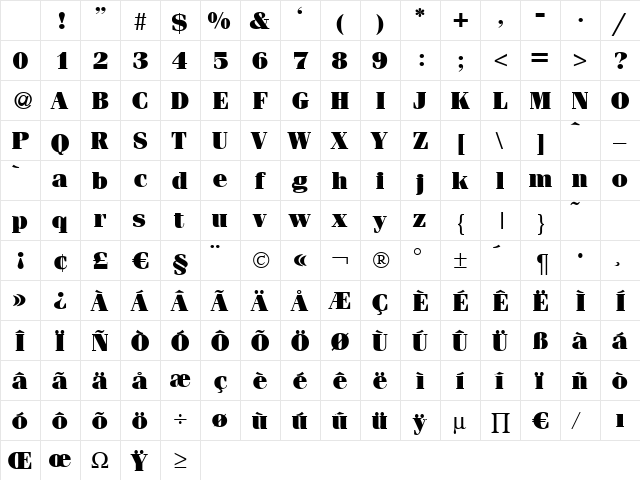
Complete FerventUltra Regular glyph index. Displaying only characters natively supported by FerventUltra Regular font.
FerventUltra is a composed and adaptable typeface that performs quietly and consistently across a wide range of design contexts.